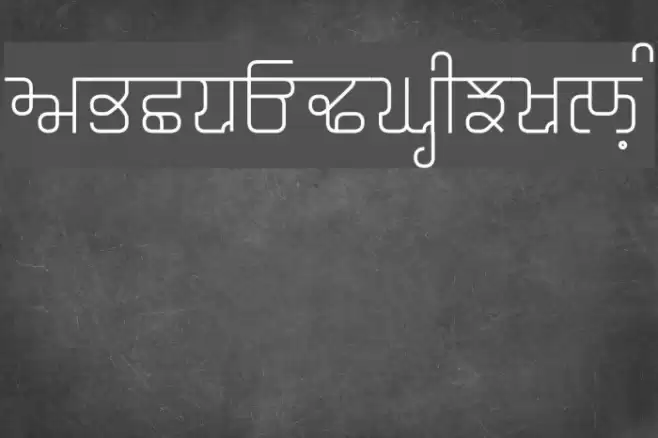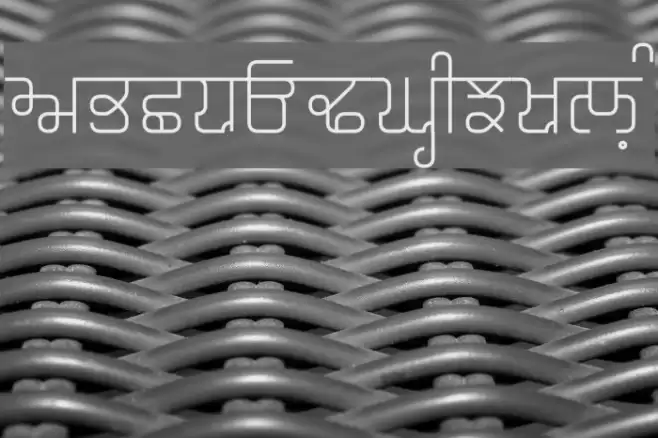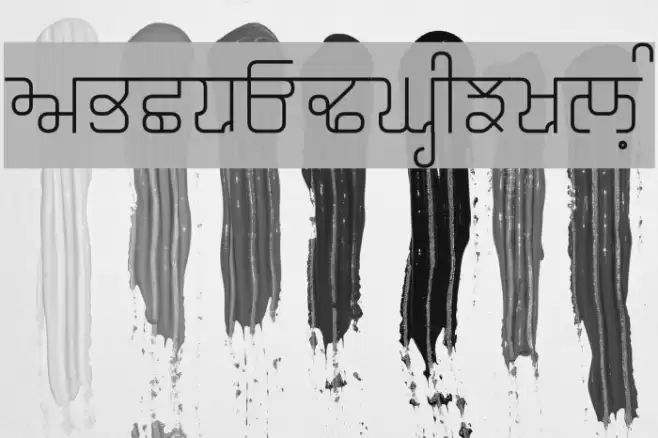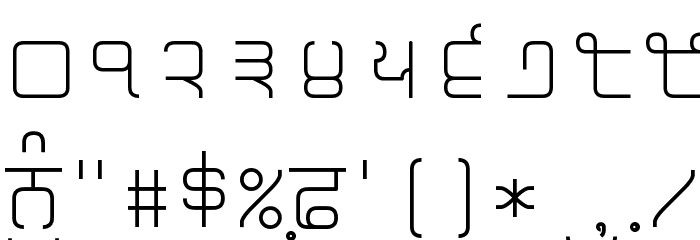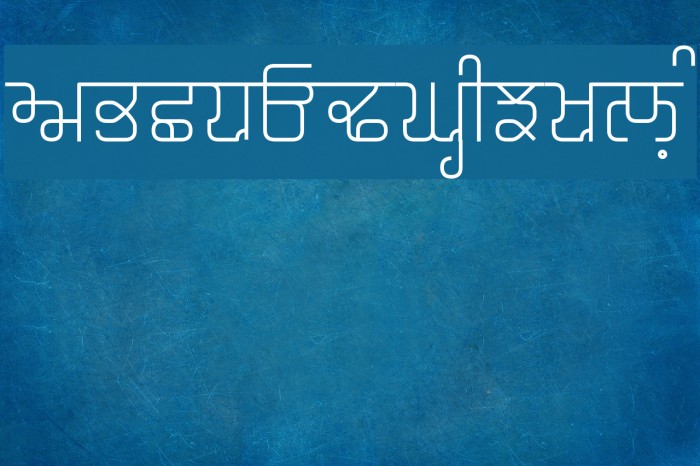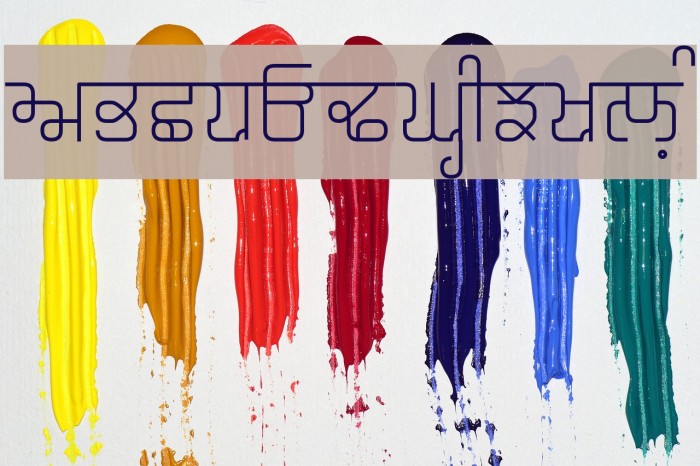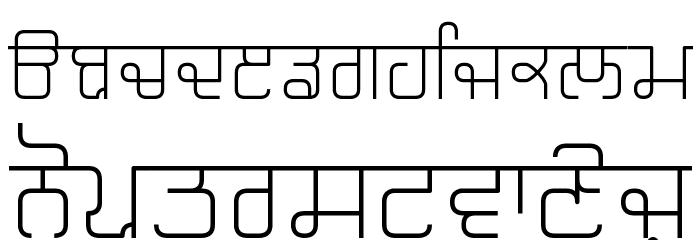
Magaz Light Font
Magaz Light Description
This font features a unique and modern design with a geometric structure. The characters are formed with consistent line thickness, creating a harmonious and balanced appearance. The rounded edges and smooth curves give it a friendly and approachable feel, while the overall design maintains a sense of sophistication. The font's clean lines and open shapes make it highly legible, even at smaller sizes. It includes a full set of uppercase and lowercase letters, numerals, and a variety of special characters, making it versatile for various design needs.
A modern, geometric font with rounded edges and consistent line thickness from Asian fonts.
- Proposed Projects: Ideal for branding, advertising, and editorial design projects that require a contemporary and approachable look.
- Use Case: Headlines, Logos, Branding